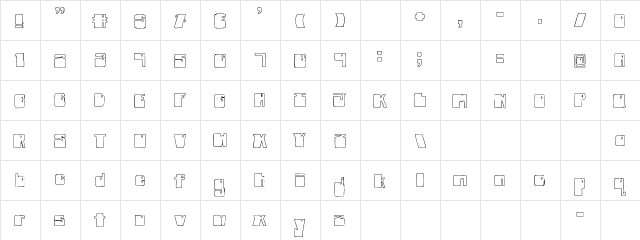
SBC Platforms SBC Platforms
Design Context for SBC Platforms Typeface
SBC Platforms is a composed and adaptable typeface that performs quietly and consistently across a wide range of design contexts.